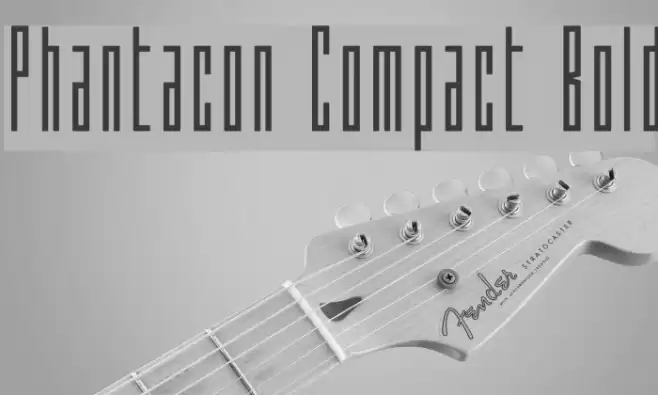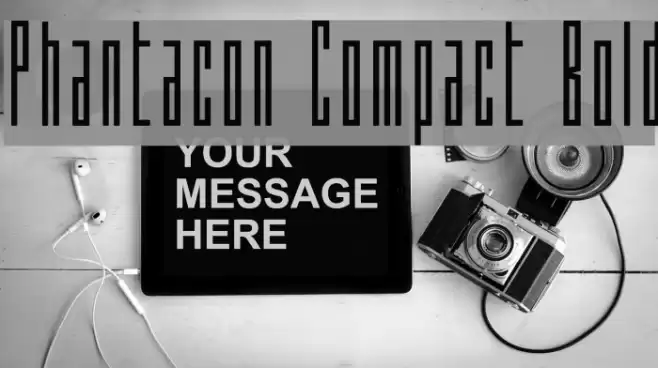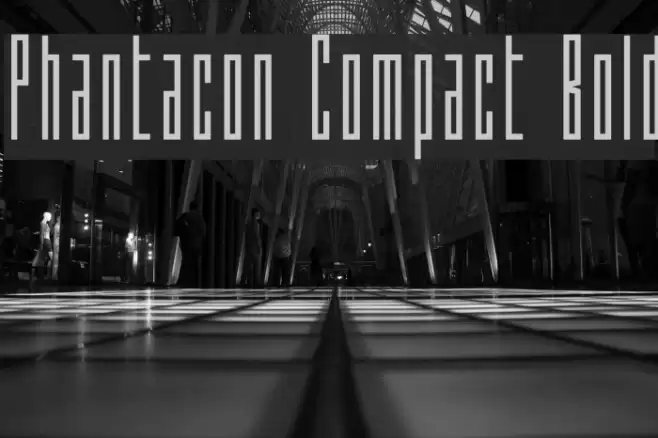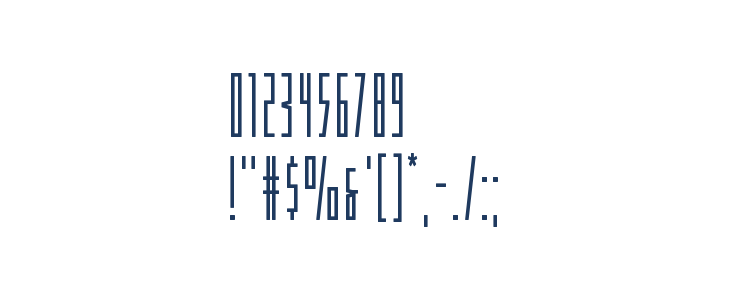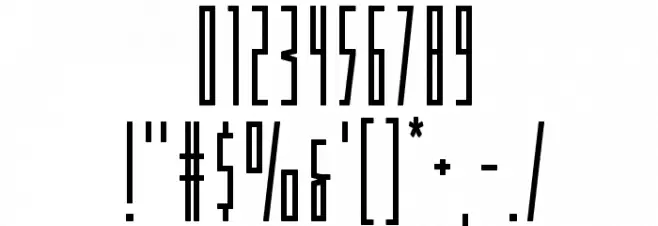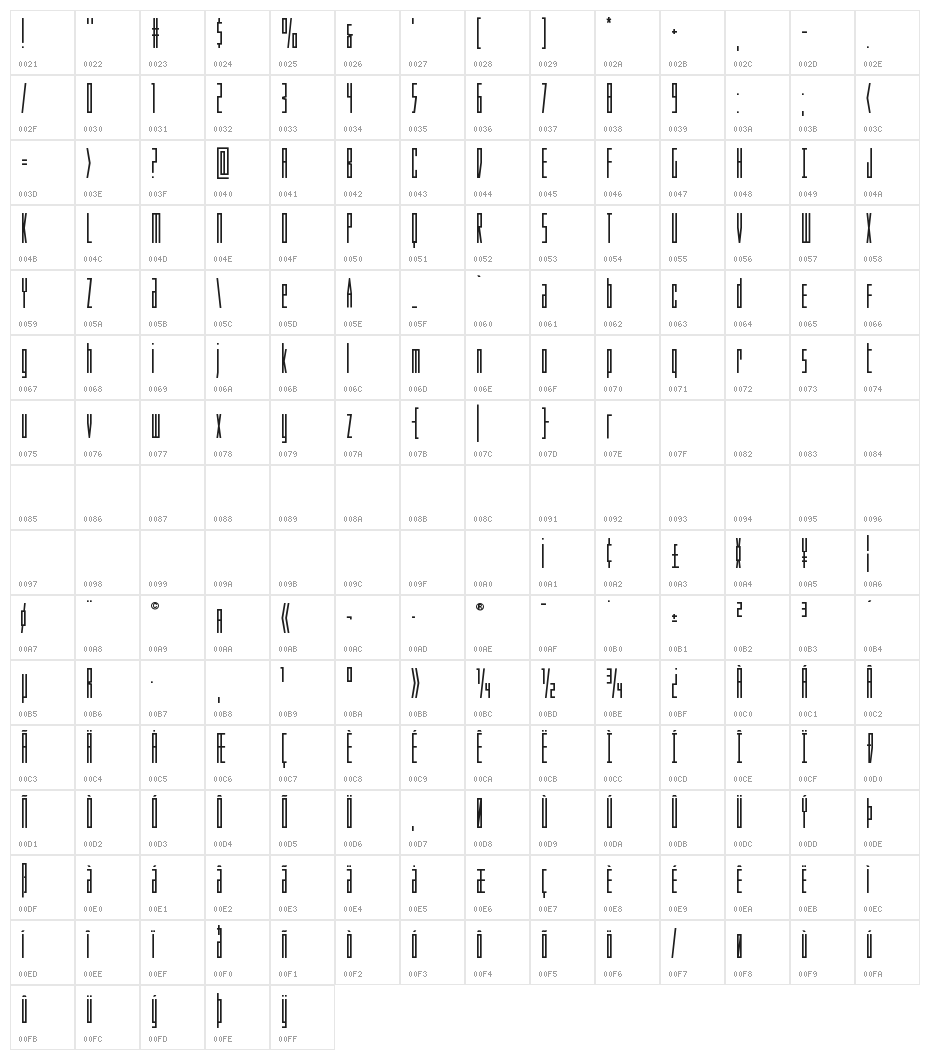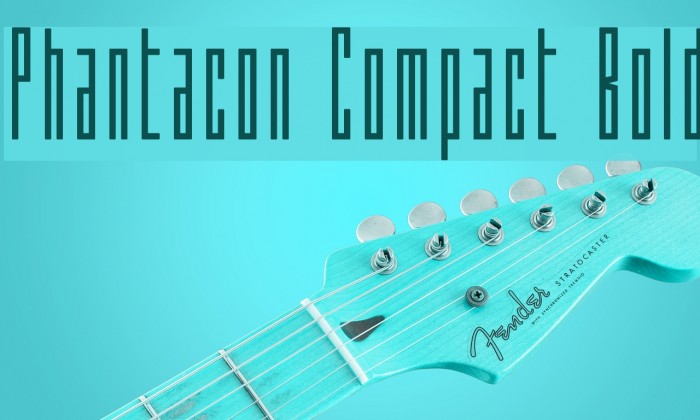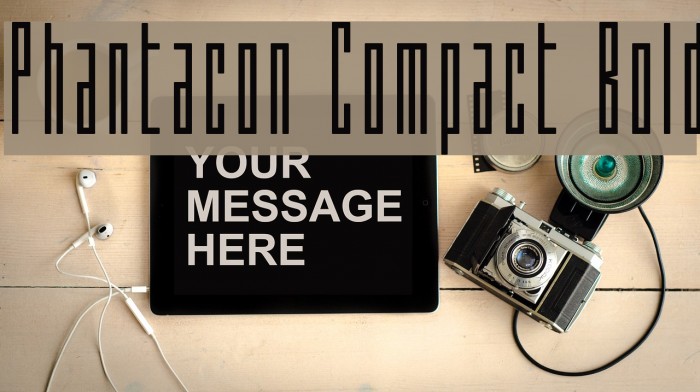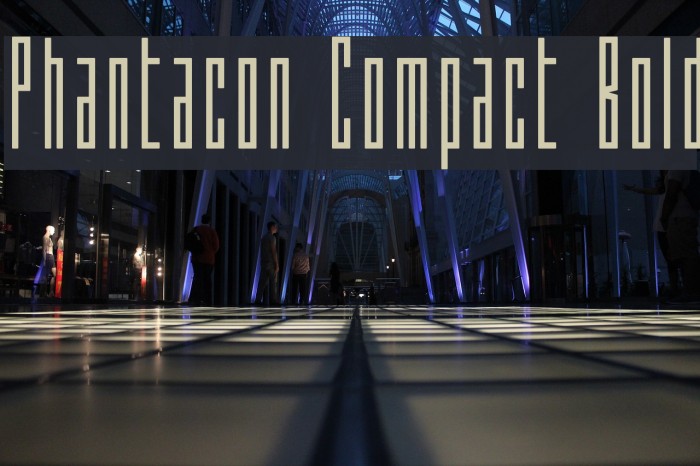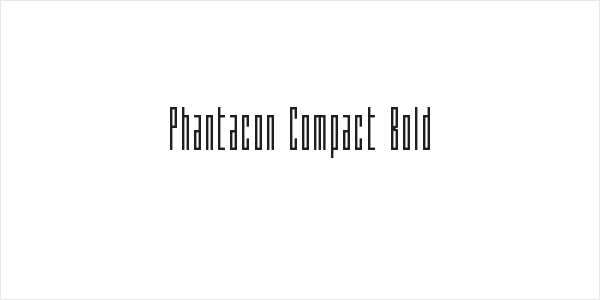
Phantacon Compact Bold Font
Phantacon Compact Bold Description
This font features a highly condensed and bold style, characterized by its tall and narrow letterforms. The uppercase and lowercase letters maintain a consistent height, creating a uniform appearance. The design is geometric with sharp angles and straight lines, giving it a modern and futuristic feel. The numerals and special characters follow the same condensed style, ensuring a cohesive look across all glyphs. The font's bold weight and compact width make it stand out, ideal for impactful headlines and titles.
A bold, condensed font with a modern, geometric style from Uncategorized fonts.
- Proposed Projects: Ideal for futuristic branding, sci-fi posters, video game titles, and modern advertising campaigns.